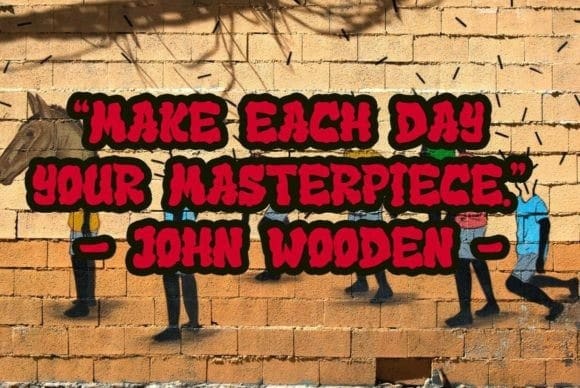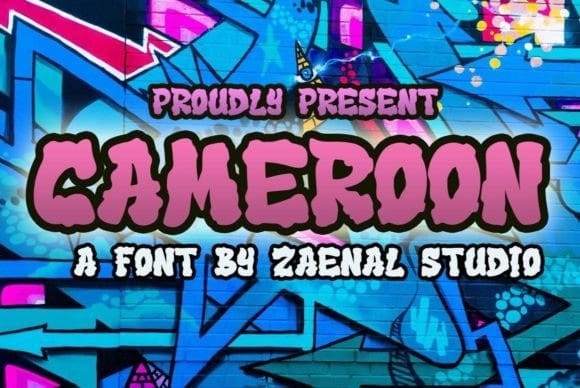
Cameroon Display Font
Cameroon Display Font is a cartoon, unique, and funny display font perfect for branding, logos, and many more. Add it now to your fonts library, as it has the potential to enhance each of your designs!